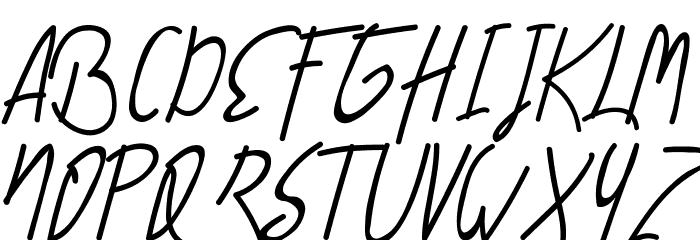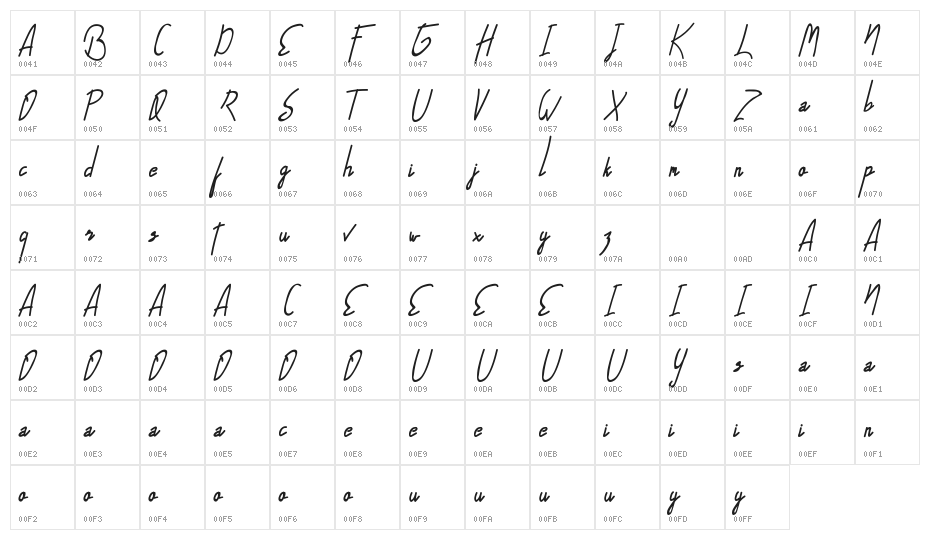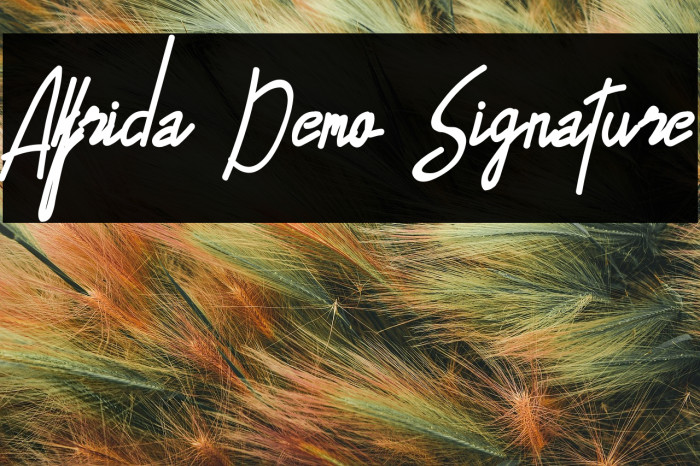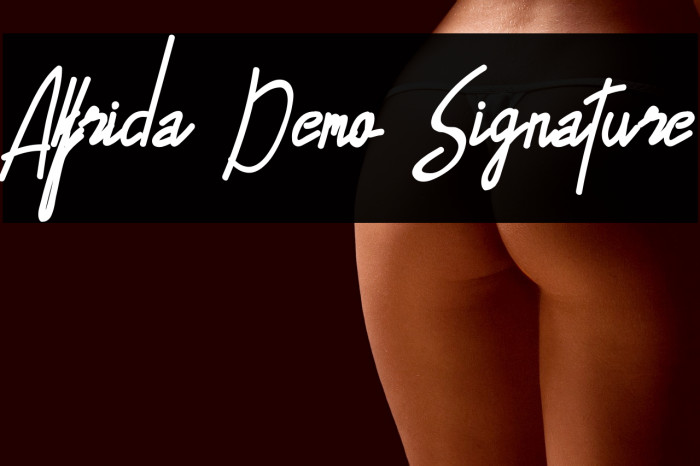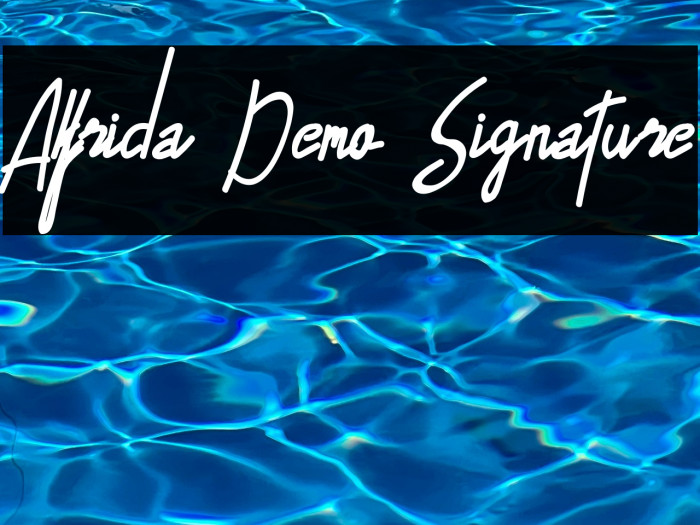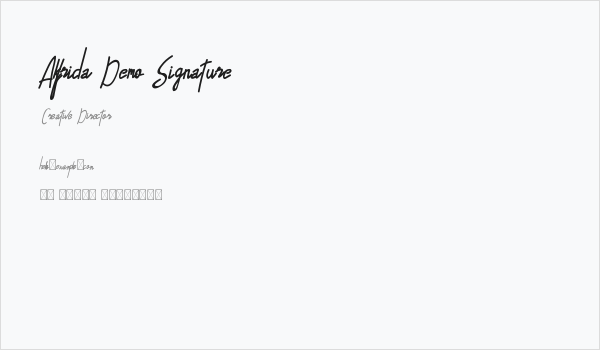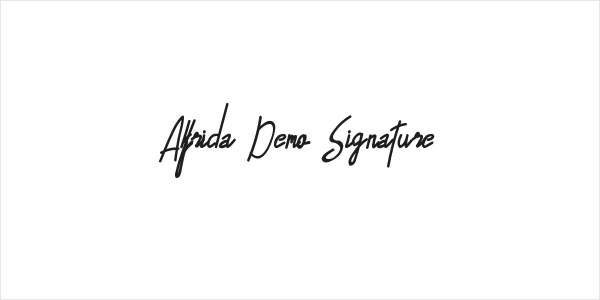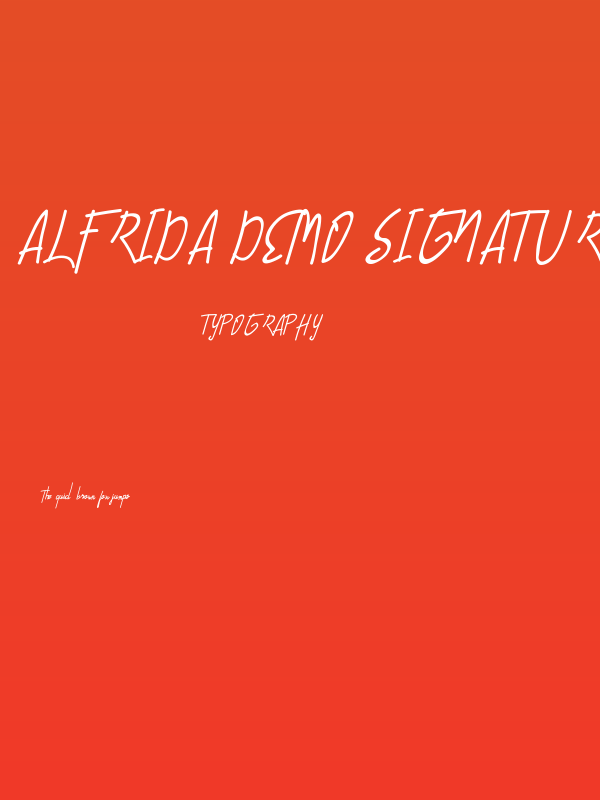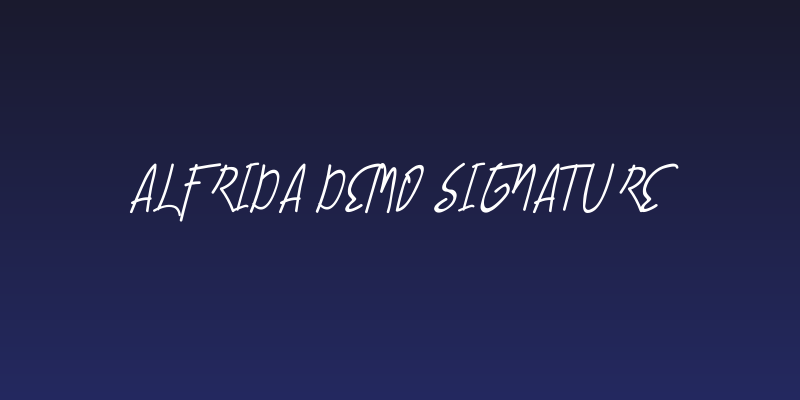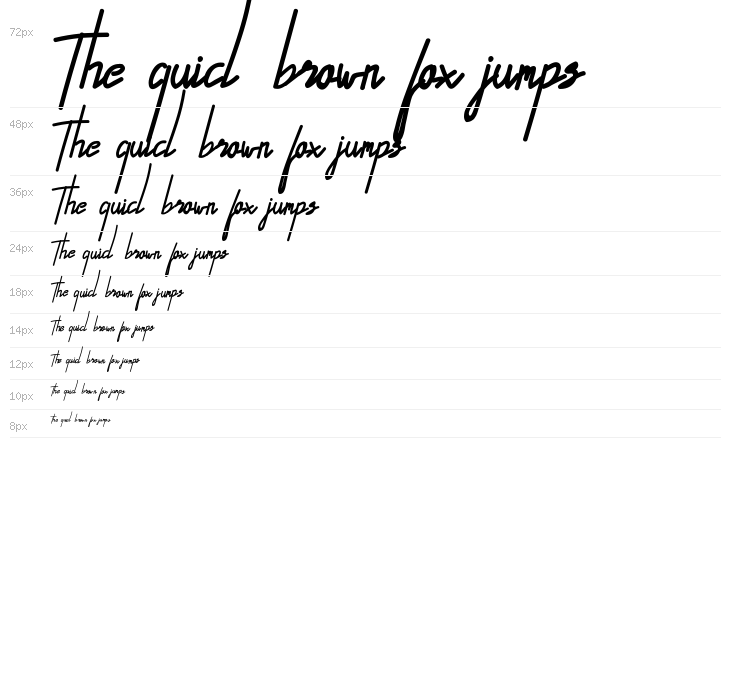
Alfrida Demo Signature Font
Alfrida Demo Signature Description
This font exudes a casual and personal touch, reminiscent of a handwritten signature. The letters are fluid and connected, with a natural flow that mimics cursive handwriting. The strokes are smooth and slightly irregular, adding to the authentic handwritten feel. The uppercase letters are tall and slightly narrow, while the lowercase letters maintain a consistent height, creating a harmonious balance. The overall appearance is elegant yet approachable, making it suitable for projects that require a personal or artistic flair.
| Overall Style | Casual, Elegant |
| Proposed Projects | Ideal for personal branding, invitations, greeting cards, and artistic projects that require a signature-like appearance. |